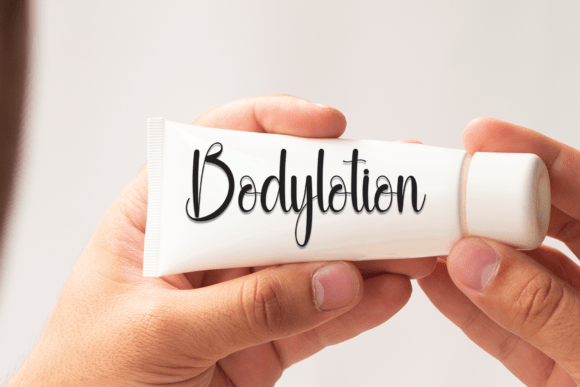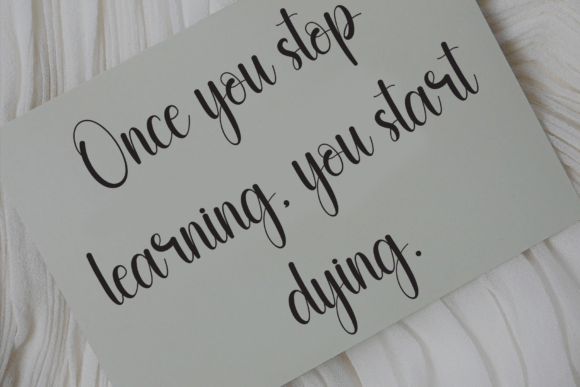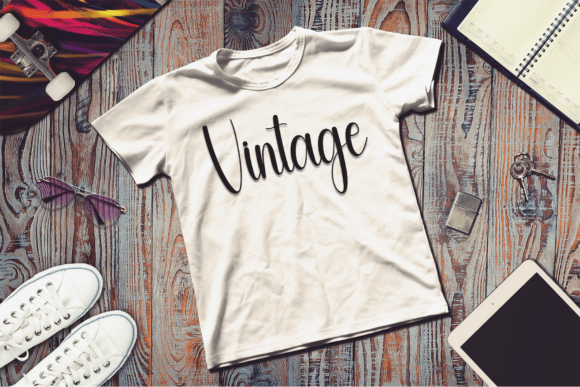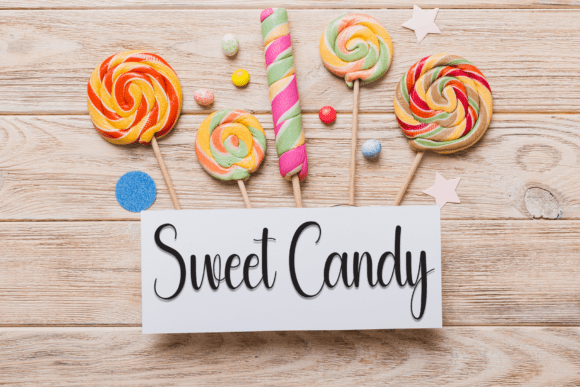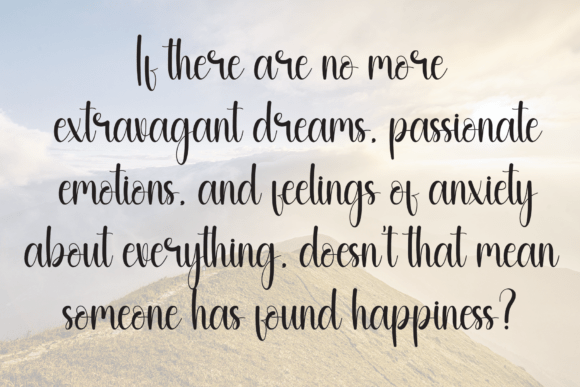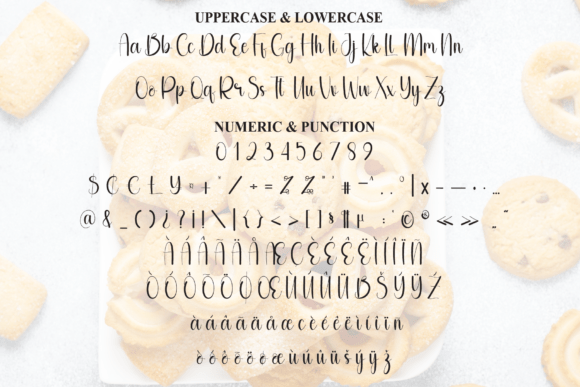
Biscuit Font: Elevate Your Designs with Elegance and Playfulness
In the world of typography, fonts play a crucial role in conveying the tone and personality of a design. For those seeking a stylish and charming script font, Biscuit Font is an excellent choice. This beautiful handwritten script font is designed to capture elegance and playfulness in every stroke, making it perfect for a variety of creative projects.
The Charm of Biscuit Font
Biscuit Font is a stylish handwritten script font that boasts flowing curves and a natural rhythm. Its elegant design brings a personal, charming touch to invitations, branding, and social media. The font’s graceful strokes and refined lines evoke a sense of sophistication, making it ideal for designers and crafters looking to add a touch of luxury to their work.
Key Features of Biscuit Font
- Elegant Handwritten Script: Biscuit Font features a beautiful, flowing script that adds a personal touch to any design.
- Playful yet Sophisticated: The font’s playful curves and natural rhythm bring a sense of whimsy, while its refined lines maintain a level of sophistication.
- Versatile: Biscuit Font is perfect for a variety of projects, including invitations, branding, social media, and more.
- Easy to Read: The font’s clear and legible design ensures that your message is conveyed with ease.
Uses of Biscuit Font
Biscuit Font is an incredibly versatile font that can be used in a wide range of design projects. Here are a few ideas to get you started:
- Invitations: Add a touch of elegance to your wedding invitations, birthday party invites, or baby shower announcements.
- Branding: Use Biscuit Font to create a unique and memorable brand identity for your business or product.
- Social Media: Elevate your social media posts with a stylish and eye-catching font that will make your content stand out.
- Stationery: Create beautiful stationery, such as letterheads, greeting cards, or journals, with Biscuit Font.
Why Choose Biscuit Font?
With so many fonts available, why choose Biscuit Font? Here are a few reasons why designers and crafters love this beautiful script font:
- Unique and Creative: Biscuit Font offers a fresh and unique perspective on traditional script fonts.
- Elegant and Sophisticated: The font’s refined design and flowing curves bring a level of sophistication to any project.
- Easy to Use: Biscuit Font is easy to read and works well in a variety of design applications.
Tips for Using Biscuit Font
To get the most out of Biscuit Font, here are a few tips to keep in mind:
- Use it Sparingly: Biscuit Font is a statement font, so use it sparingly to add emphasis and create visual interest.
- Pair it with Other Fonts: Combine Biscuit Font with other fonts to create a unique and visually appealing design.
- Experiment with Colors: Play with different colors and textures to add depth and interest to your design.
Biscuit Font is a stylish and charming script font that is sure to elevate your designs. With its elegant handwritten script, playful curves, and natural rhythm, it’s perfect for adding a personal touch to invitations, branding, social media, and more. Whether you’re a designer or crafter, Biscuit Font is a great choice for anyone looking to add a touch of sophistication and creativity to their work.